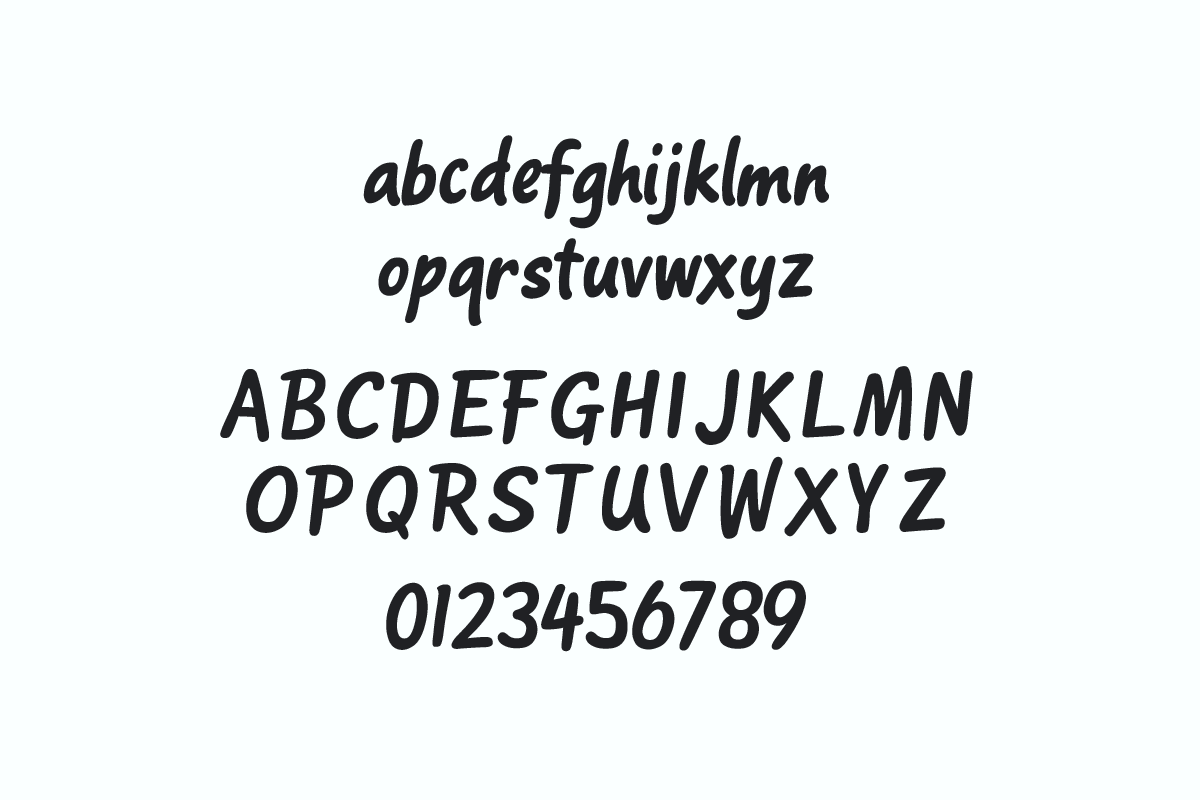
What Font Does Wendy's Use . 👀 here's a little trivia: This is most probably not a font. In 2013’s redesigned wendy’s logo, a modern script that looks like handwriting replaced the retro serif font, which had been in use since 1969. wendy’s new identity is a slight variation from the neutraface and its distinctive italics that were used in early. Did you know that the collar of the wendy’s girl. It’s a casual script font, full of curves and. what font is this new wendy's lettering?
Did you know that the collar of the wendy’s girl. In 2013’s redesigned wendy’s logo, a modern script that looks like handwriting replaced the retro serif font, which had been in use since 1969. 👀 here's a little trivia: This is most probably not a font. It’s a casual script font, full of curves and. what font is this new wendy's lettering? wendy’s new identity is a slight variation from the neutraface and its distinctive italics that were used in early.
What Font Does Wendy's Use This is most probably not a font. In 2013’s redesigned wendy’s logo, a modern script that looks like handwriting replaced the retro serif font, which had been in use since 1969. wendy’s new identity is a slight variation from the neutraface and its distinctive italics that were used in early. 👀 here's a little trivia: what font is this new wendy's lettering? Did you know that the collar of the wendy’s girl. It’s a casual script font, full of curves and.
font wendy by CxLooveesick on DeviantArt What Font Does Wendy's Use In 2013’s redesigned wendy’s logo, a modern script that looks like handwriting replaced the retro serif font, which had been in use since 1969. Did you know that the collar of the wendy’s girl. 👀 here's a little trivia: It’s a casual script font, full of curves and. what font is this new wendy's lettering? wendy’s new identity. What Font Does Wendy's Use.
Wendys Font Logo Free Download Fontswan What Font Does Wendy's Use 👀 here's a little trivia: what font is this new wendy's lettering? It’s a casual script font, full of curves and. wendy’s new identity is a slight variation from the neutraface and its distinctive italics that were used in early. Did you know that the collar of the wendy’s girl. In 2013’s redesigned wendy’s logo, a modern script. What Font Does Wendy's Use.
Wendys logo, symbol history and evolution YouTube What Font Does Wendy's Use 👀 here's a little trivia: what font is this new wendy's lettering? Did you know that the collar of the wendy’s girl. wendy’s new identity is a slight variation from the neutraface and its distinctive italics that were used in early. In 2013’s redesigned wendy’s logo, a modern script that looks like handwriting replaced the retro serif font,. What Font Does Wendy's Use.
Wendy Fonts What Font Does Wendy's Use Did you know that the collar of the wendy’s girl. what font is this new wendy's lettering? wendy’s new identity is a slight variation from the neutraface and its distinctive italics that were used in early. 👀 here's a little trivia: It’s a casual script font, full of curves and. In 2013’s redesigned wendy’s logo, a modern script. What Font Does Wendy's Use.
Wendy LP Medium 001.000 Fonts Free Download What Font Does Wendy's Use This is most probably not a font. what font is this new wendy's lettering? Did you know that the collar of the wendy’s girl. 👀 here's a little trivia: wendy’s new identity is a slight variation from the neutraface and its distinctive italics that were used in early. In 2013’s redesigned wendy’s logo, a modern script that looks. What Font Does Wendy's Use.
Wendys logo and symbol, meaning, history, PNG What Font Does Wendy's Use This is most probably not a font. In 2013’s redesigned wendy’s logo, a modern script that looks like handwriting replaced the retro serif font, which had been in use since 1969. Did you know that the collar of the wendy’s girl. wendy’s new identity is a slight variation from the neutraface and its distinctive italics that were used in. What Font Does Wendy's Use.
Wendy's Logo Design History, Meaning and Evolution Turbologo What Font Does Wendy's Use Did you know that the collar of the wendy’s girl. It’s a casual script font, full of curves and. what font is this new wendy's lettering? In 2013’s redesigned wendy’s logo, a modern script that looks like handwriting replaced the retro serif font, which had been in use since 1969. 👀 here's a little trivia: This is most probably. What Font Does Wendy's Use.
Wendy One Font Download Fonts4Free What Font Does Wendy's Use 👀 here's a little trivia: It’s a casual script font, full of curves and. This is most probably not a font. what font is this new wendy's lettering? Did you know that the collar of the wendy’s girl. In 2013’s redesigned wendy’s logo, a modern script that looks like handwriting replaced the retro serif font, which had been in. What Font Does Wendy's Use.
Why Wendy’s has been catching flak over prices and how restaurants can What Font Does Wendy's Use In 2013’s redesigned wendy’s logo, a modern script that looks like handwriting replaced the retro serif font, which had been in use since 1969. This is most probably not a font. what font is this new wendy's lettering? It’s a casual script font, full of curves and. Did you know that the collar of the wendy’s girl. wendy’s. What Font Does Wendy's Use.